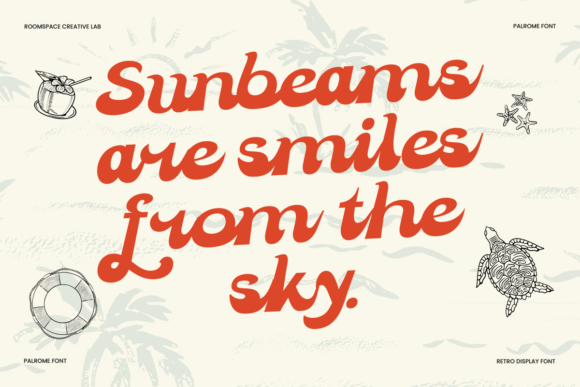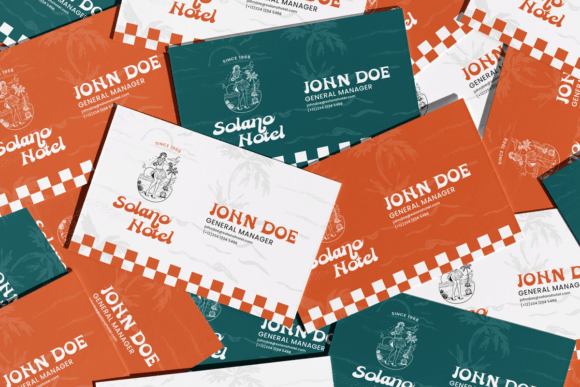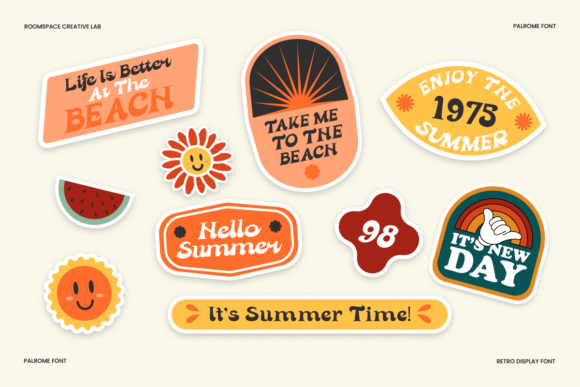
Introduction to Palrome Font
Have you ever stumbled upon an old vinyl record or a vintage photograph, and suddenly, a wave of creative inspiration washes over you? That’s the magic of discovering a new design resource that sparks your imagination. For designers, finding the perfect font can be a game-changer. Introducing Palrome Font, a bold retro display font that’s sure to transport you back to the groovy vibes of the 70s and 80s.
With its playful curves, whimsical details, and perfectly tuned kerning, Palrome Font is the ultimate design resource for creatives looking to add a touch of nostalgia and modern elegance to their projects. Whether you’re working on a high-quality logo, packaging design, or editorial layout, Palrome Font is the perfect addition to your design toolkit.
Key Features of Palrome Font
- High-quality, professional font designed for creative projects, ideal for use in graphic design, digital art, and publishing.
- Unique characteristics include elegant, cursive script and ornate details, making it perfect for adding a touch of sophistication to any creative project.
Honest Review: Palrome Font
As a designer, I’m always on the lookout for high-quality design resources to elevate my creative projects. Recently, I had the chance to work with the Palrome Font, and I’m excited to share my honest review with you.
What works well: ✨ I was impressed by the elegant and sophisticated look of the Palrome Font. It’s perfect for creating a professional and modern feel in any design project. I also appreciated the fact that it’s available for free download, making it an excellent addition to any designer’s toolkit.
- Perfect for creative projects that require a sophisticated and modern look.
Limitations: ⚠️ One thing I noticed is that the Palrome Font may not be suitable for very small text sizes, as the letters can become difficult to read. Additionally, some designers may find the font to be a bit too formal for certain projects.
Overall, I was impressed by the Palrome Font and would recommend it to designers looking for a high-quality, free design resource. It’s perfect for creative projects that require a sophisticated and modern look, and it’s easy to work with due to its transparent background.
The Palrome Font is perfect for creative projects such as logos, graphics, social media posts, posters, brochures, presentations, and documents. It’s also great for personal projects, such as creating a personal brand or designing a website.